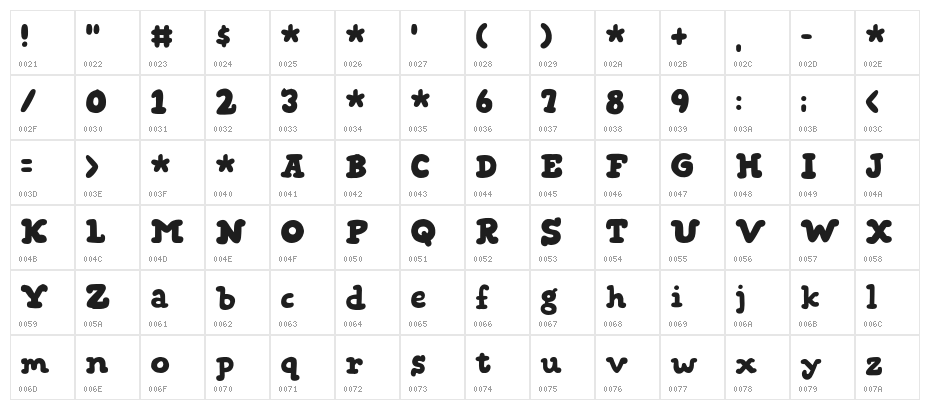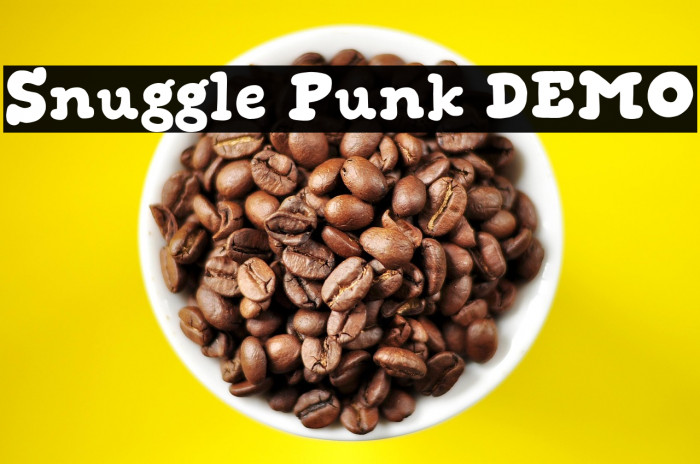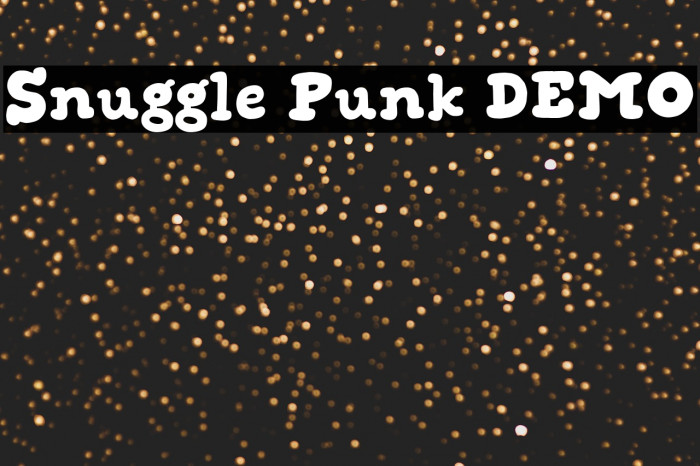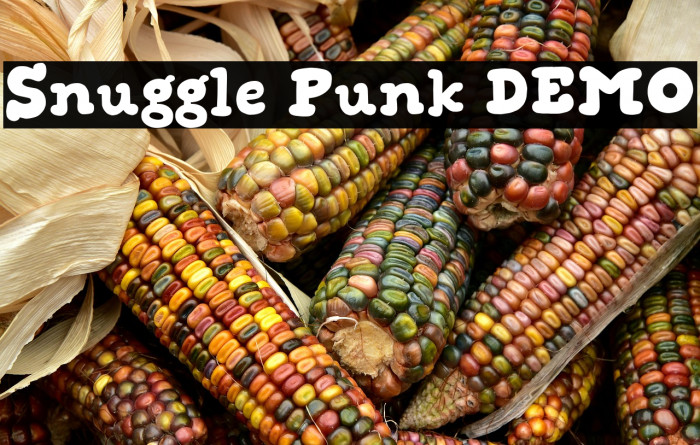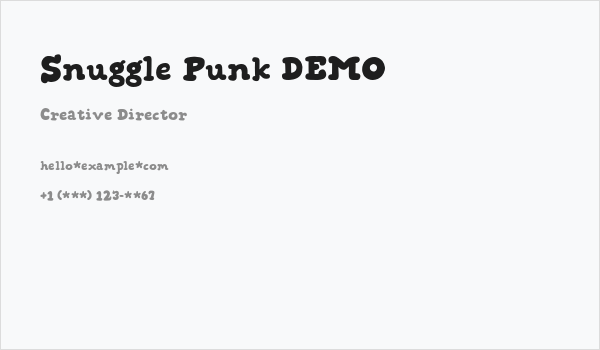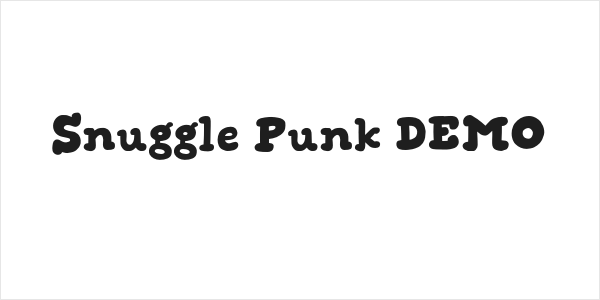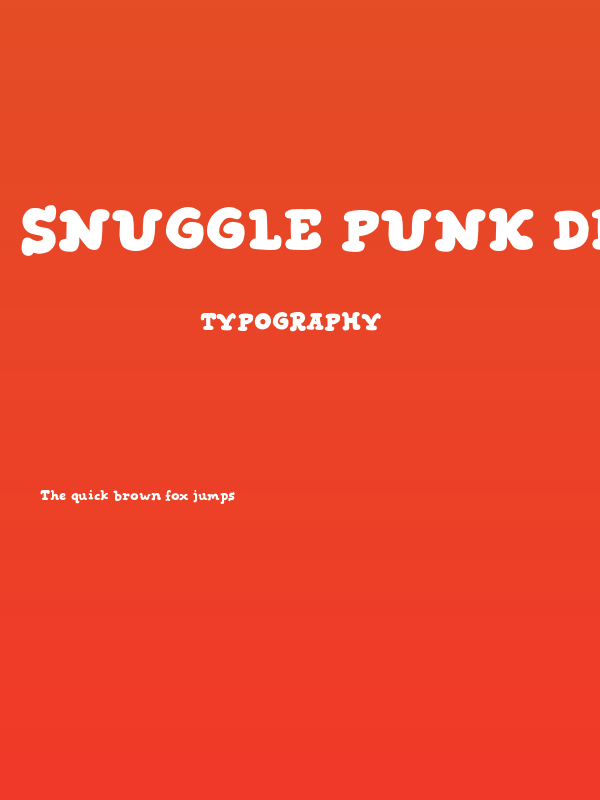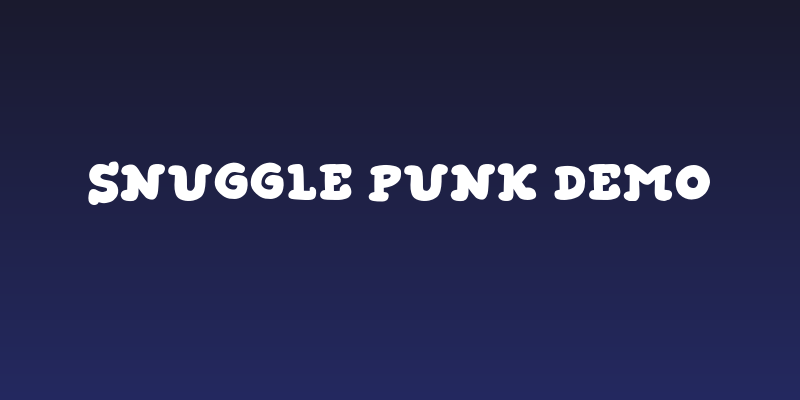
Snuggle Punk DEMO Font
Snuggle Punk DEMO Description
This playful and bold font features rounded, bubbly characters that exude a sense of fun and whimsy. The letters are thick and have a soft, almost cushion-like appearance, making them stand out with a friendly and approachable vibe. The uppercase and lowercase letters maintain a consistent style, with the lowercase letters slightly smaller but equally bold. Numbers and special characters follow the same design ethos, ensuring uniformity across all glyphs. The font's unique style makes it ideal for projects that require a touch of humor or a casual, informal tone.
| Proposed Projects | Ideal for children's books, playful branding, party invitations, and casual social media graphics. |